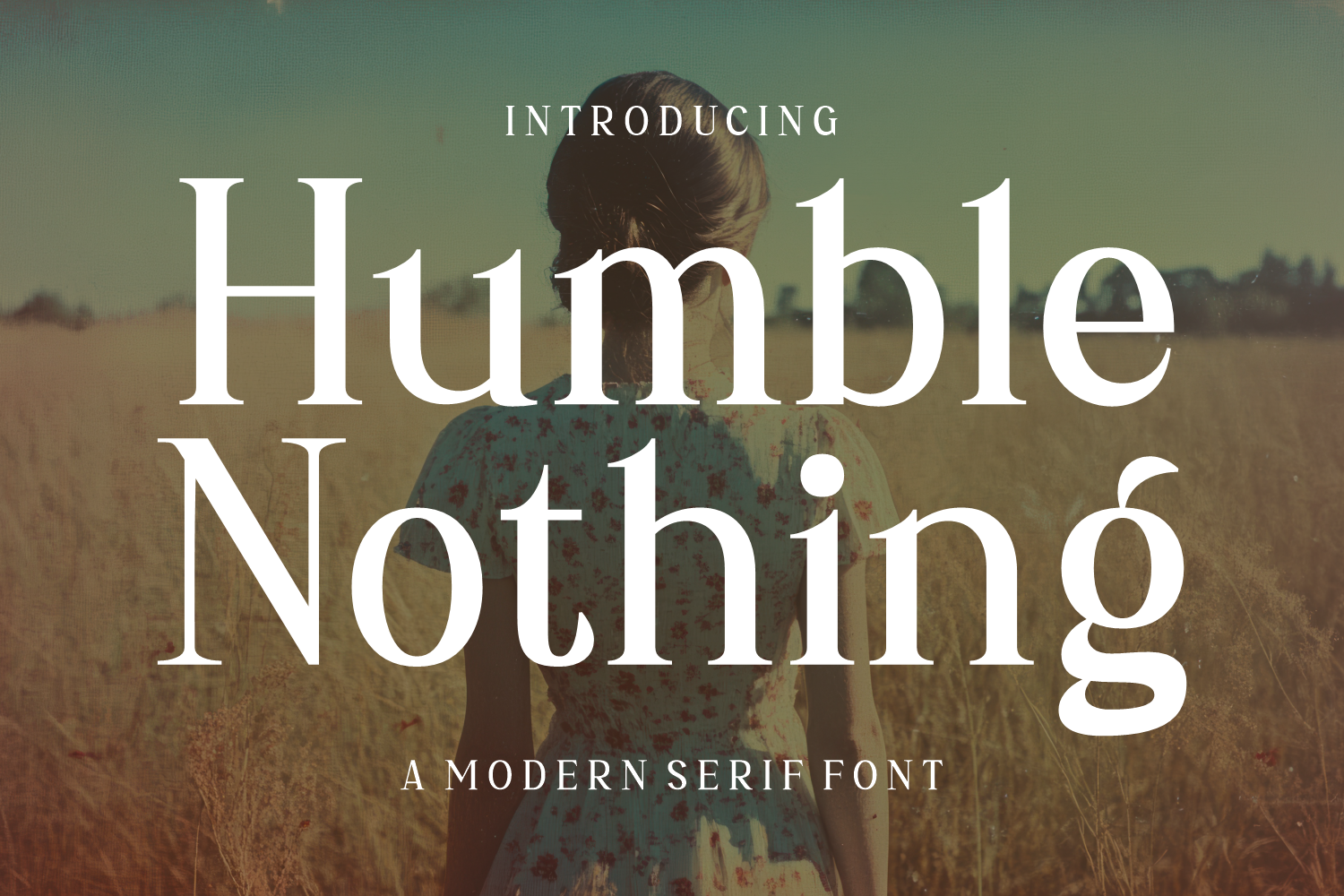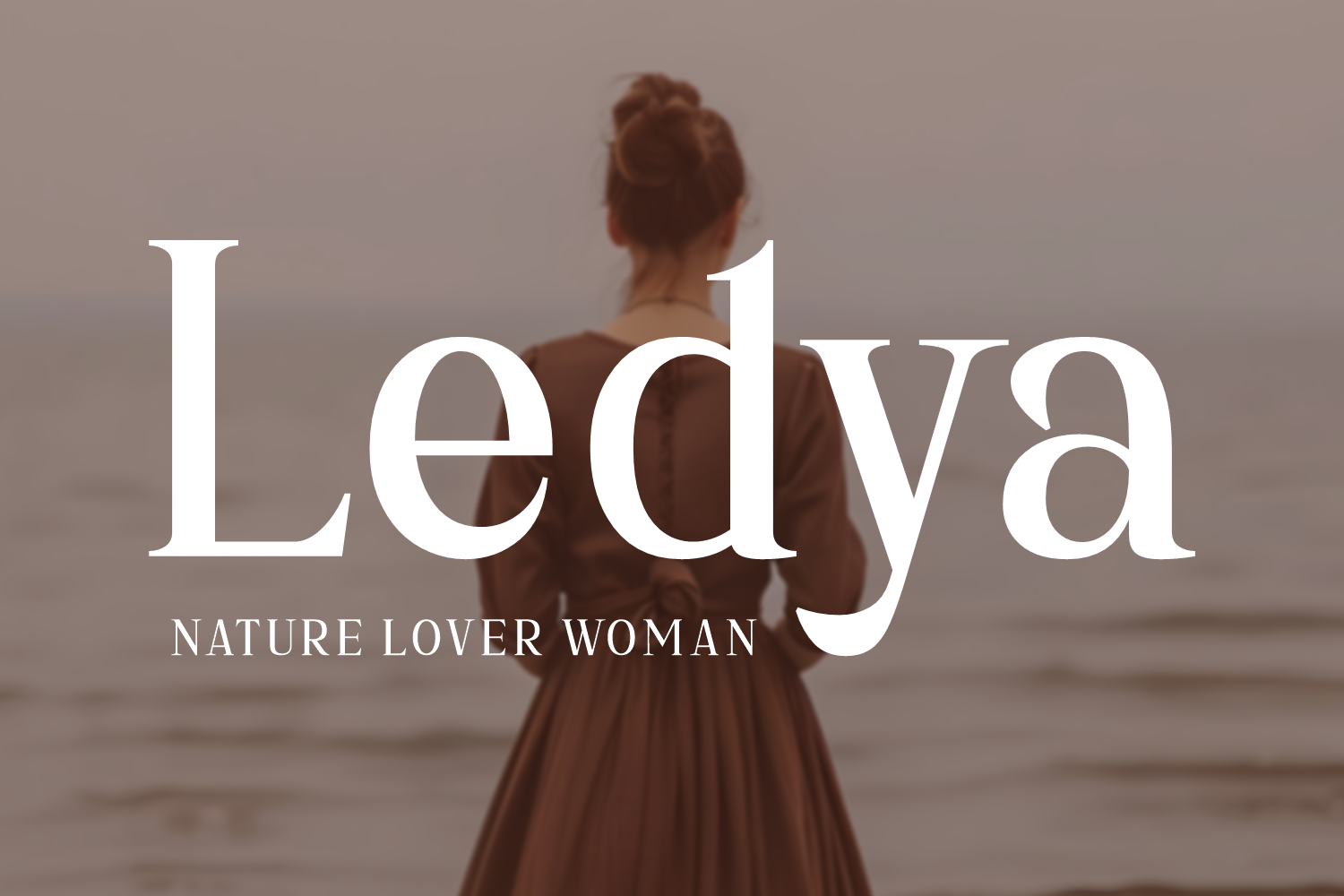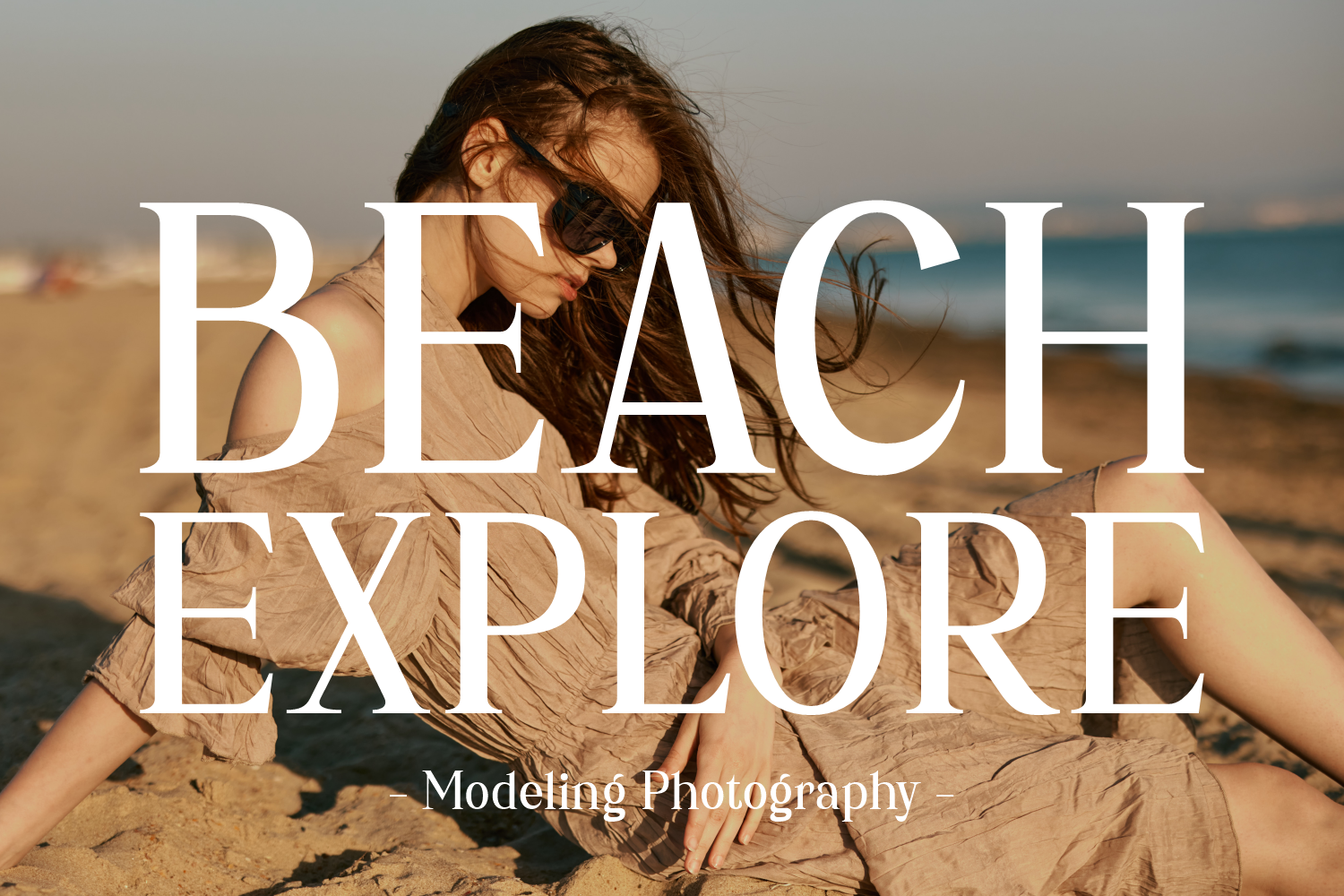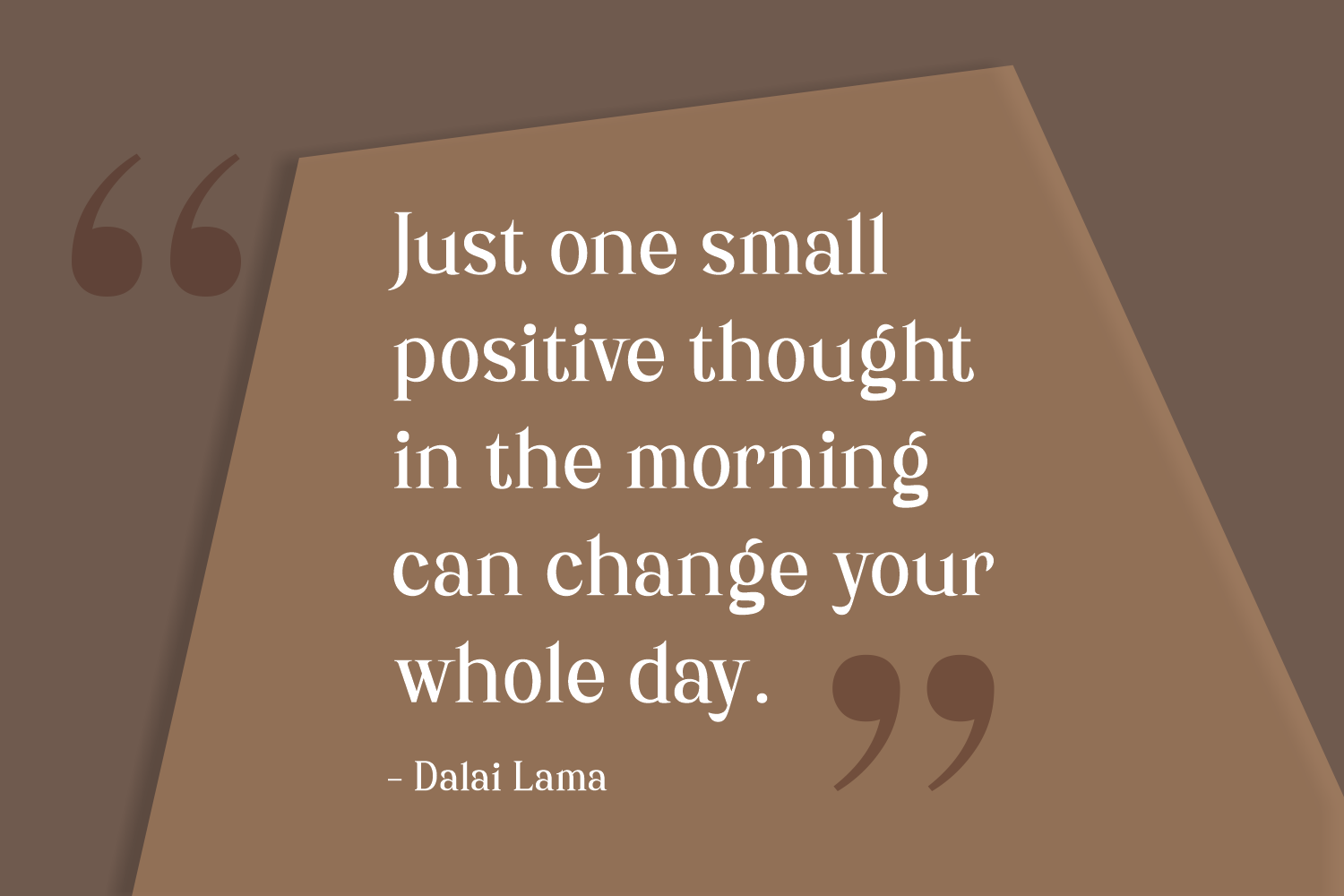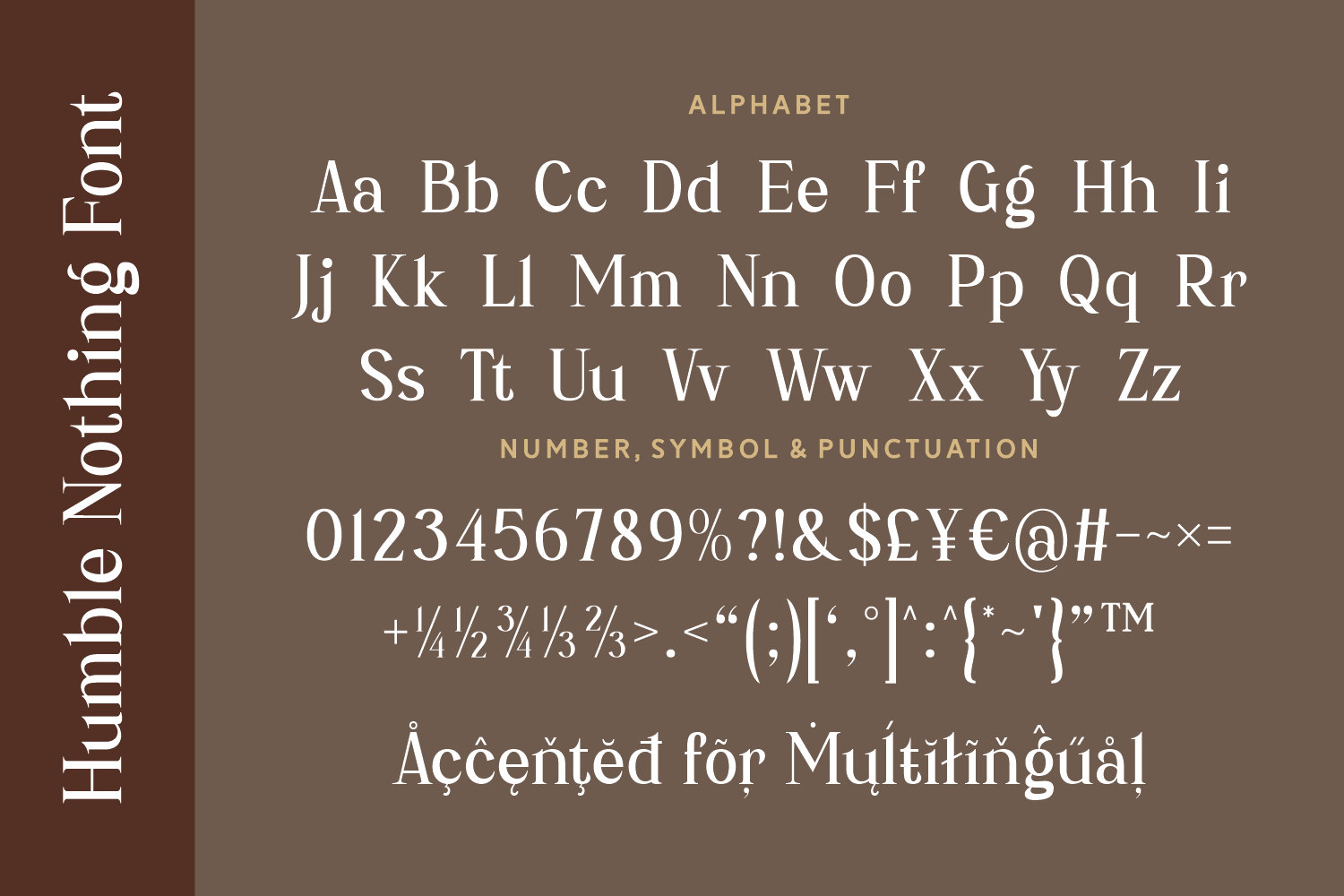
Humble Nothing is a modern serif font that radiates nostalgic charm with a contemporary twist. Its tall, slightly flared serifs and balanced spacing give it a literary, romantic feel — perfect for book covers, branding, and heartfelt storytelling.
Softly spoken, visually strong.
Humble Nothing